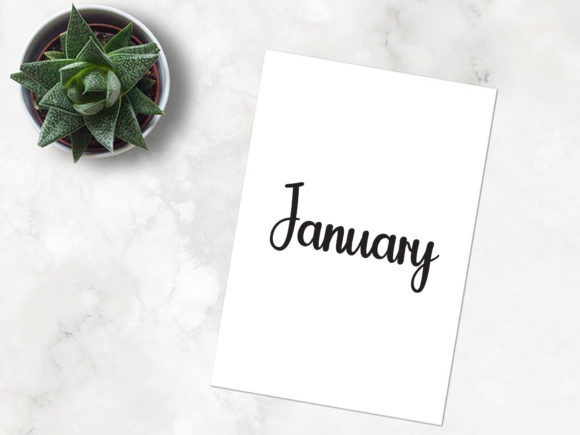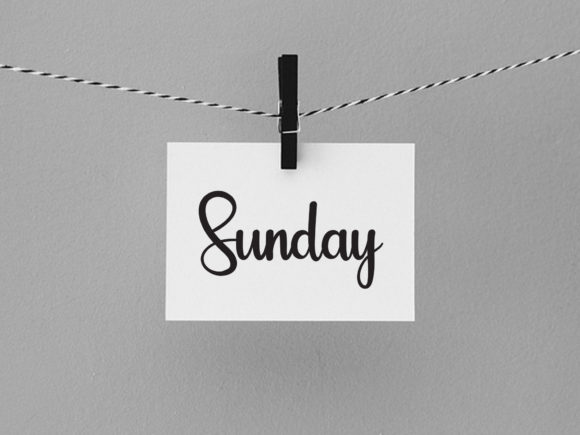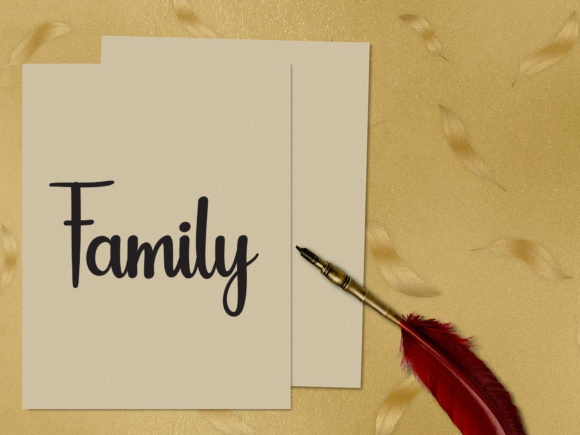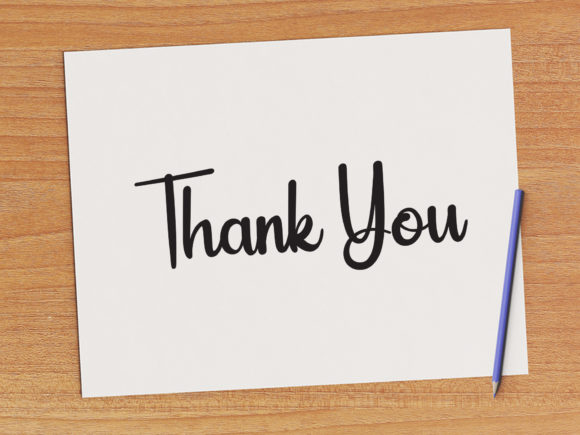
Introducing Butterfly Font: A Sweet Handwritten Delight for Designers and Crafters
Are you on the hunt for a font that adds a touch of whimsy and sweetness to your designs? Look no further than the Butterfly Font! This charming handwritten font is carefully crafted to produce the expected outcomes, making it an excellent choice for designers and crafters alike. In this article, we’ll dive into the world of Butterfly Font, exploring its features, uses, and benefits.
What is Butterfly Font?
Butterfly Font is a beautiful, sweet handwritten font designed with great care to deliver exceptional results. Its unique charm lies in its handcrafted nature, which gives it a personal and approachable feel. This font is perfect for adding a touch of warmth and personality to various design projects, from digital products to print materials.
Key Features of Butterfly Font
- Handwritten with love: Butterfly Font is carefully crafted by hand, ensuring that each letter and character is unique and full of character.
- Versatile: This font can be used for a wide range of design projects, from invitations and greeting cards to product labels and branding materials.
- Easily readable: Despite its handwritten nature, Butterfly Font is remarkably legible, making it suitable for both digital and print applications.
- High-quality: This font is designed to deliver exceptional results, with crisp and clean lines that will make your designs stand out.
Uses of Butterfly Font
Butterfly Font is an incredibly versatile font that can be used for various design projects. Here are some ideas to get you started:
- Wedding and event invitations: Add a touch of romance and whimsy to your wedding or event invitations with Butterfly Font.
- Greeting cards and stationery: Create beautiful, personalized greeting cards and stationery with this charming font.
- Product labels and packaging: Use Butterfly Font to add a touch of personality to your product labels and packaging.
- Branding and marketing materials: Incorporate this font into your branding and marketing materials, such as brochures, flyers, and social media graphics.
Benefits of Using Butterfly Font
So, why choose Butterfly Font for your design projects? Here are some benefits to consider:
- Unique and eye-catching: This font will add a touch of personality and whimsy to your designs, making them stand out from the crowd.
- Easily customizable: Butterfly Font can be easily customized to fit your brand’s style and tone.
- Time-saving: With Butterfly Font, you can quickly and easily create beautiful designs without spending hours on tedious typography.
Tips for Using Butterfly Font
To get the most out of Butterfly Font, here are some tips to keep in mind:
- Pair it with complementary fonts: Combine Butterfly Font with other fonts to create a unique and visually appealing typography.
- Experiment with colors and textures: Add depth and interest to your designs by experimenting with different colors and textures.
- Keep it simple: Don’t overcomplicate your designs – sometimes, less is more, and Butterfly Font can shine on its own.
In conclusion, Butterfly Font is a sweet handwritten font that is sure to delight designers and crafters alike. With its unique charm, versatility, and high-quality design, this font is perfect for adding a touch of personality to various design projects. Whether you’re creating wedding invitations, product labels, or branding materials, Butterfly Font is an excellent choice. So why not give it a try and see the magic for yourself?